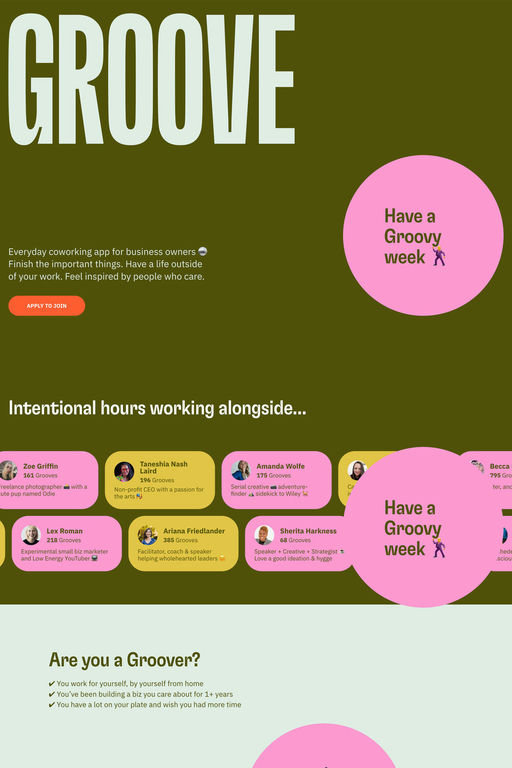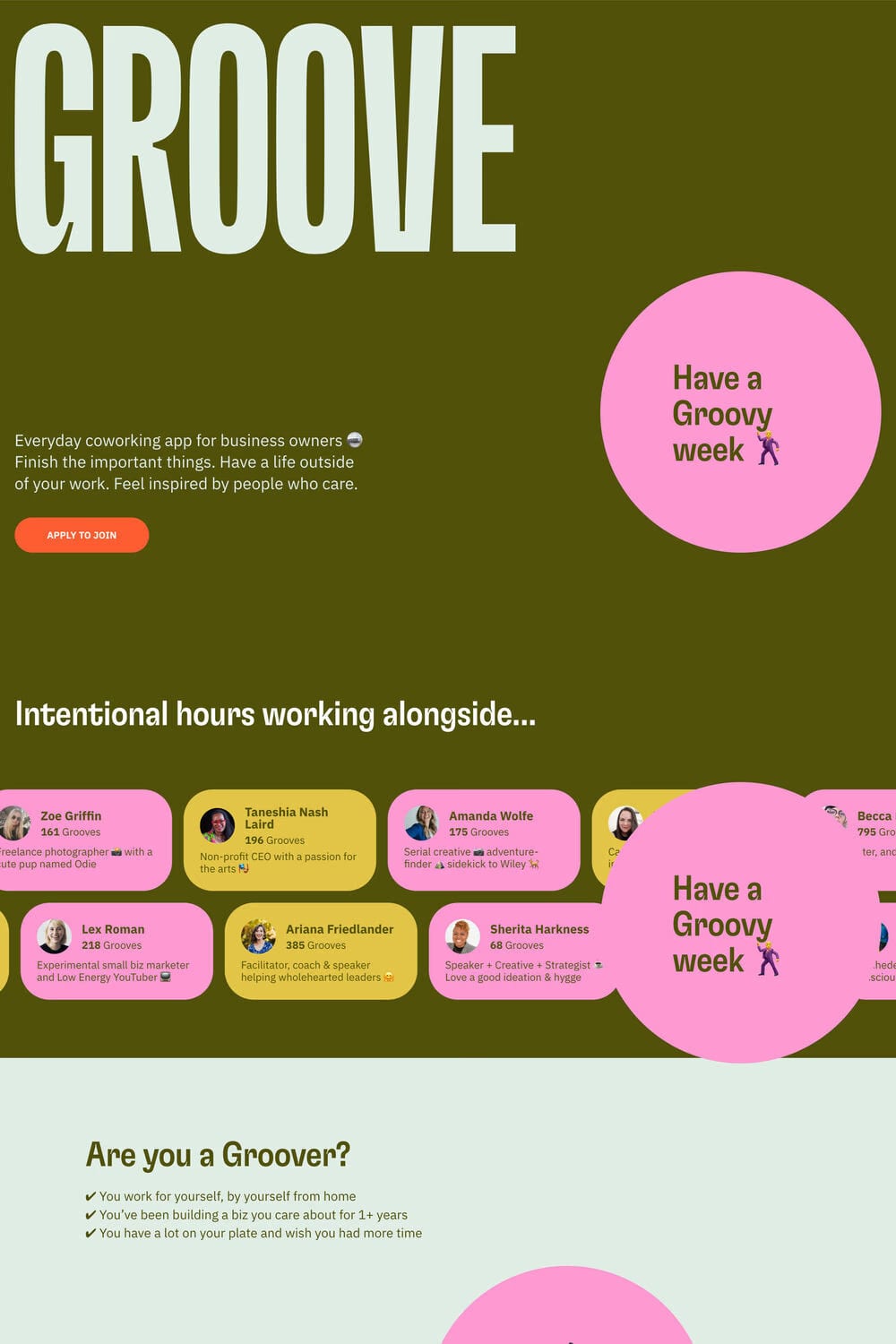
GT Flexa is a sans-serif typeface from Grilli Type.
Instead of the traditional view of a typeface as a collection of static styles, GT Flexa embraces the idea of a fluid design space. As a dynamic tool, it enables joyful typesetting that allows for fully responsive designs. The result is an impressively extensive typographic system with a distinctive personality.